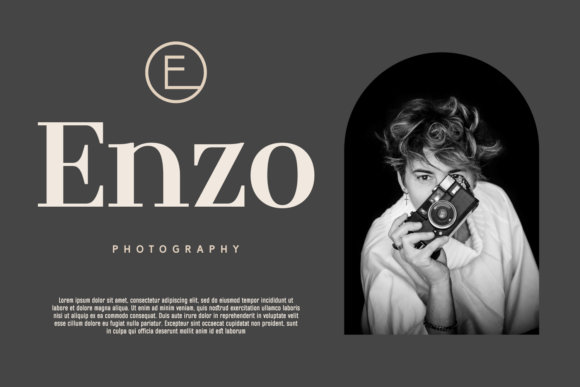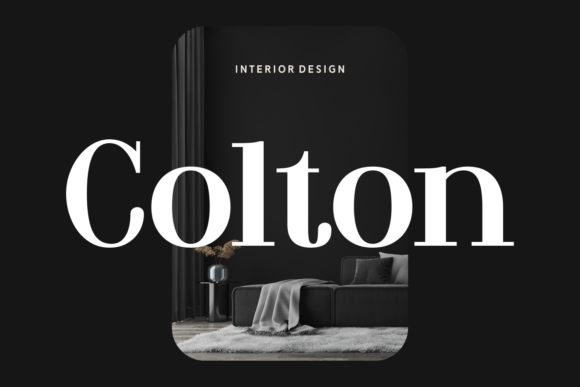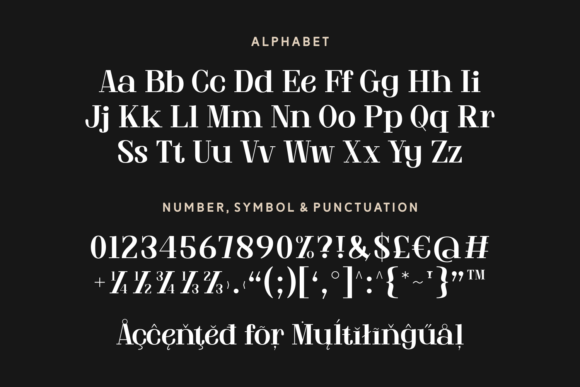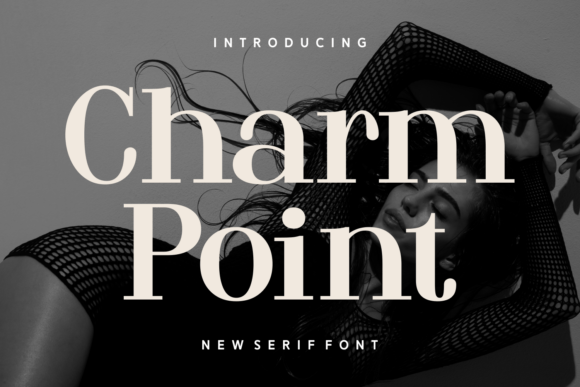
Introducing Charm Point: The Ultimate Serif Font for Elegant Designs
In the world of typography, a well-crafted font can elevate your design project from ordinary to extraordinary. If you’re a designer or craftsperson looking for a refined serif font that exudes timeless elegance with a touch of drama, look no further than Charm Point. This stunning font is perfect for fashion branding, magazine layouts, and sophisticated identities, bringing high-end aesthetics to your projects.
The Charm of Serif Fonts
Serif fonts have long been a staple in the design world, prized for their classic and sophisticated look. These fonts feature small lines or flourishes at the ends of the letters, which not only add visual interest but also enhance readability. Among the many serif fonts available, Charm Point stands out for its unique blend of refinement and drama.
What Makes Charm Point Special?
Charm Point is more than just a font – it’s an experience. With its elegant lines, precise craftsmanship, and attention to detail, this font is sure to captivate your audience. Here are some of the key features that make Charm Point a standout choice:
- Timeless Elegance: Charm Point’s classic design ensures that your project will never go out of style. Its refined serif lines and balanced proportions create a sense of sophistication and luxury.
- Touch of Drama: What sets Charm Point apart is its subtle hint of drama. The font’s carefully crafted lines and curves add a touch of flair, making it perfect for projects that require a bit of extra personality.
- High-End Aesthetics: Whether you’re working on a fashion brand, magazine layout, or sophisticated identity, Charm Point brings a level of high-end style that’s hard to match.
- Versatility: This font is incredibly versatile, suitable for a wide range of design projects, from print materials like brochures and posters to digital applications like websites and social media graphics.
Perfect for Fashion Branding
Fashion brands require a font that exudes style, sophistication, and glamour. Charm Point checks all these boxes and more. Its elegant design and refined lines make it perfect for:
- Logos: Create a lasting impression with a custom logo that showcases your brand’s personality and style.
- Packaging: Elevate your product packaging with a font that conveys luxury and sophistication.
- Advertising: Make your ads stand out with a font that demands attention and exudes high-end style.
Ideal for Magazine Layouts
Magazines require a font that can handle a variety of design challenges, from headlines to body copy. Charm Point is up to the task, offering:
- Readability: The font’s clear and balanced design ensures that your readers can focus on the content without straining their eyes.
- Visual Interest: Charm Point’s subtle flair adds visual interest to your layouts, keeping readers engaged and interested.
Crafting Sophisticated Identities
For brands that require a sophisticated and elegant identity, Charm Point is the perfect choice. Use it for:
- Business Cards: Create a lasting impression with a business card that exudes style and sophistication.
- Letterheads: Elevate your brand’s correspondence with a font that conveys professionalism and elegance.
In conclusion, Charm Point is a refined serif font that brings timeless elegance with a touch of drama to your design projects. Perfect for fashion branding, magazine layouts, and sophisticated identities, this font is sure to elevate your designs to new heights. With its high-end aesthetics, versatility, and attention to detail, Charm Point is an excellent choice for designers and craftspersons looking to create stunning and effective designs.